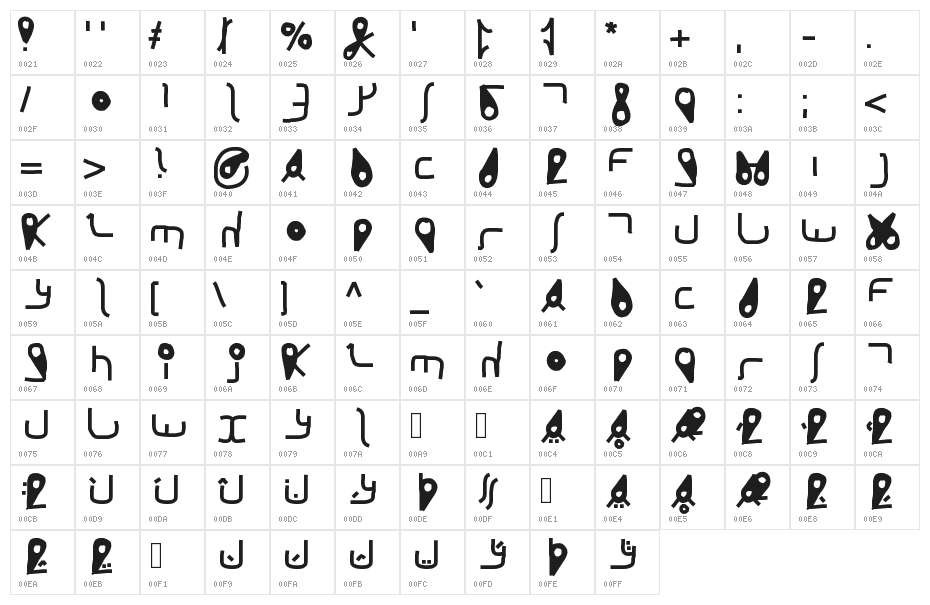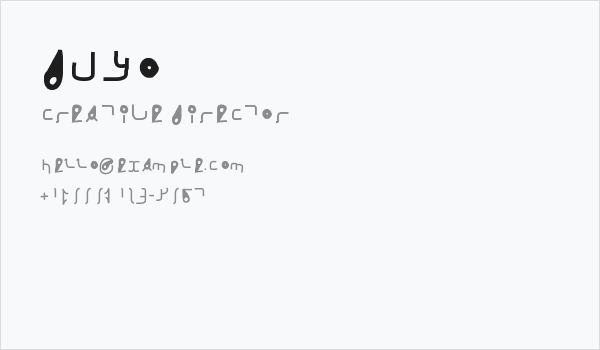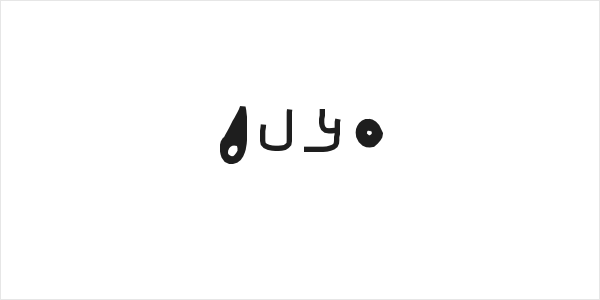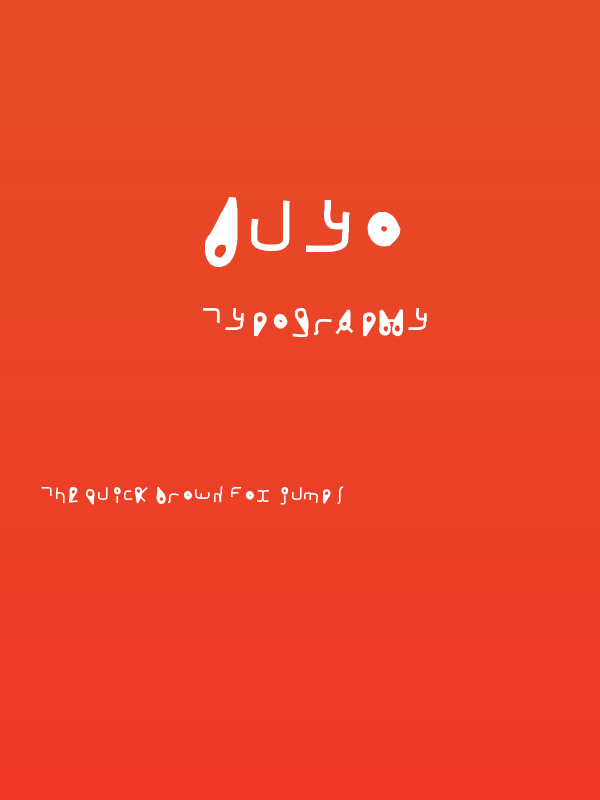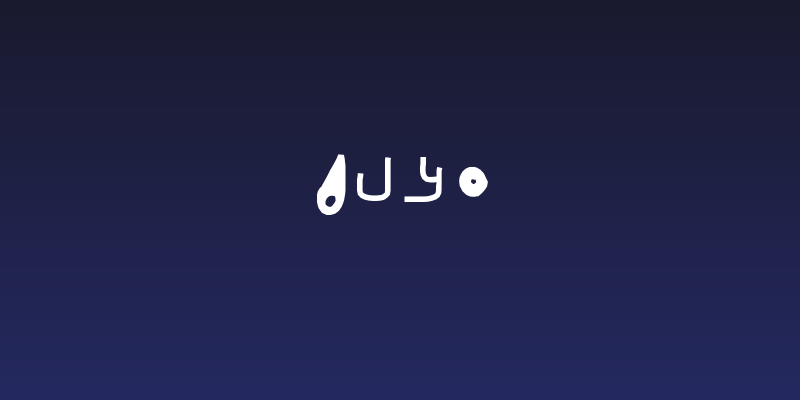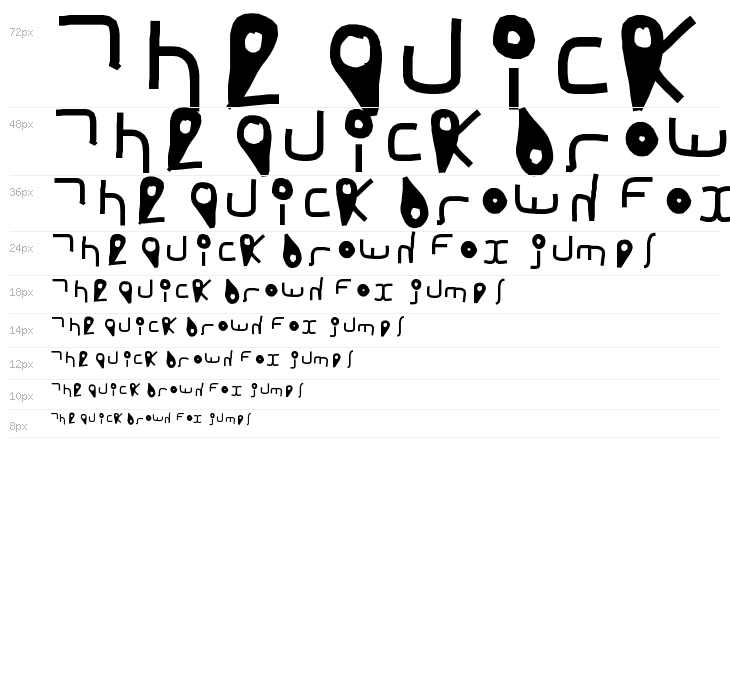
duyo Font
duyo Description
This font features a highly decorative and abstract design, characterized by its unique and unconventional shapes. Each character is crafted with a playful and artistic flair, incorporating bold strokes and unusual forms that give it a distinct personality. The letters are not uniform, with varying thicknesses and curves that create a dynamic and eye-catching appearance. This font is ideal for creative projects that require a touch of whimsy and originality, making it suitable for artistic endeavors, branding, and expressive design work.
| Use Case | Logos, Artistic projects, Creative branding |
| Proposed Projects | Ideal for creative branding, artistic projects, and expressive design work. |